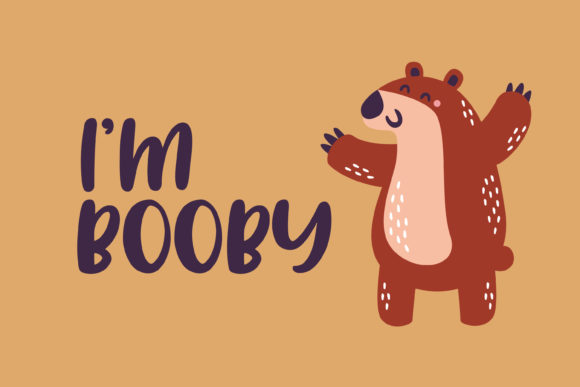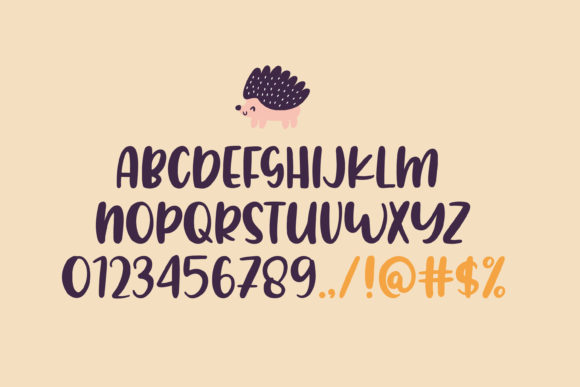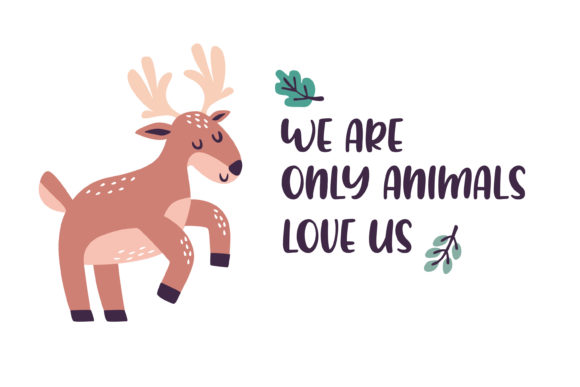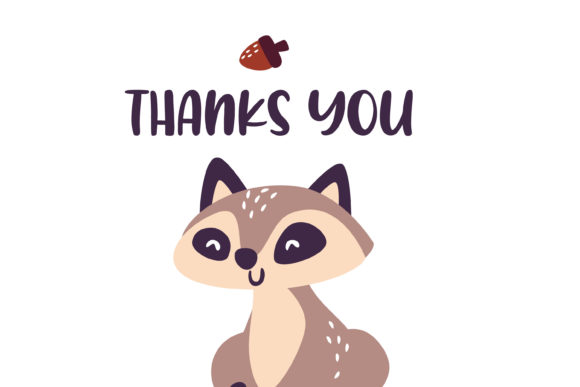
Introducing Ameriya Font: The Playful and Neat Paint Brushed Display Font
Are you tired of using the same old fonts for your designs? Look no further than Ameriya Font, a playful and neat paint brushed display font that’s perfect for creating fun and attention-grabbing designs. In this article, we’ll dive into the features and benefits of Ameriya Font, and explore how it can elevate your designs for various applications.
What is Ameriya Font?
Ameriya Font is a unique and creative display font that mimics the look of hand-painted brushstrokes. Its playful and neat design makes it perfect for creating eye-catching designs that will draw all the attention. Whether you’re a designer, crafter, or DIY enthusiast, Ameriya Font is a versatile and fun font that can add a personal touch to your projects.
Features of Ameriya Font
- Playful and Neat Design: Ameriya Font features a playful and neat design that’s perfect for creating fun and attention-grabbing designs.
- Paint Brushed Effect: The font mimics the look of hand-painted brushstrokes, giving it a unique and creative feel.
- Display Font: Ameriya Font is a display font, making it perfect for headlines, titles, and other prominent text elements.
- Multipurpose: The font is versatile and can be used for various applications, including Instagram or Facebook posts, blog post headlines, product packaging, home decor, shirt design, and crafts.
Uses of Ameriya Font
Ameriya Font is a versatile font that can be used for various design applications. Here are some ideas to get you started:
- Social Media Posts: Use Ameriya Font to create eye-catching Instagram or Facebook posts that will grab the attention of your followers.
- Blog Post Headlines: Add a personal touch to your blog post headlines with Ameriya Font, making them stand out and more engaging.
- Product Packaging: Use Ameriya Font to create unique and eye-catching product packaging that will set your products apart.
- Home Decor: Add a personal touch to your home decor with Ameriya Font, using it for wall art, signs, or other decorative items.
- Shirt Design: Create fun and unique shirt designs with Ameriya Font, perfect for personal use or as a gift.
- Crafts: Use Ameriya Font to add a personal touch to your crafts, such as scrapbooking, card making, or other paper crafts.
Benefits of Using Ameriya Font
Using Ameriya Font can bring several benefits to your designs. Here are some of the advantages of using this font:
- Unique and Creative: Ameriya Font offers a unique and creative design that will set your designs apart from others.
- Attention-Grabbing: The font’s playful and neat design makes it perfect for creating attention-grabbing designs that will draw all the attention.
- Versatile: Ameriya Font is a versatile font that can be used for various applications, making it a great addition to your font library.
In conclusion, Ameriya Font is a playful and neat paint brushed display font that’s perfect for creating fun and attention-grabbing designs. Its unique and creative design makes it a great addition to any design project, and its versatility makes it suitable for various applications. Whether you’re a designer, crafter, or DIY enthusiast, Ameriya Font is a great choice for adding a personal touch to your designs.